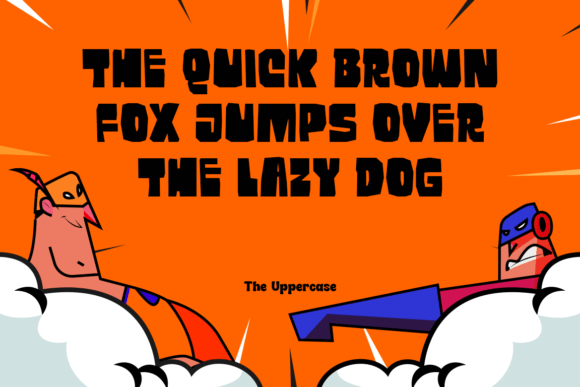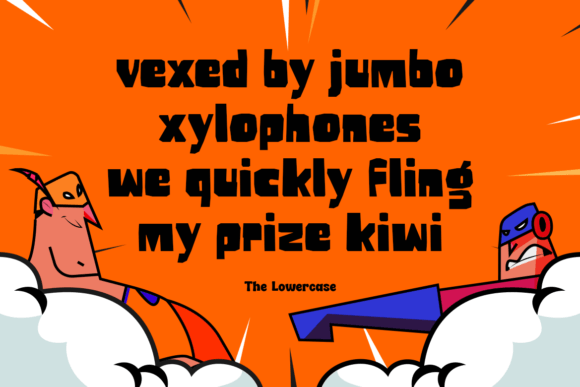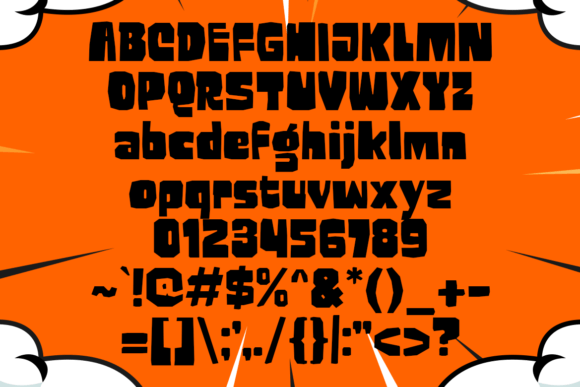
Introduction to Monfetti Font
Do you ever find yourself stuck in a creative rut, searching for that perfect font to bring your design to life? I know I have. And then, it hits you – a burst of inspiration that sends your imagination soaring. For me, that moment came when I stumbled upon the whimsical Monfetti Font. Its bold, bouncy letters are an instant mood-booster, transporting me to a world of vintage comics and playful illustration.
As a designer, I can attest that finding a high-quality design resource like Monfetti Font is a game-changer. With its transparent background and free download, it’s the perfect addition to any creative project. Whether you’re working on a children’s book, a graphic novel, or even a social media campaign, Monfetti Font adds a touch of that magical comic-book flair that’s sure to captivate your audience.
Key Features of Monfetti Font
- High-quality design resource suitable for creative projects
- Unique, colorful, and playful font style with a transparent background
- Designed with a high resolution (300 DPI) for optimal print quality
- Monfetti Font is available in multiple sizes, ranging from 12 to 72 points
- Perfect for adding a pop of color and whimsy to any creative project
Honest Review: Monfetti Font
I recently stumbled upon the Monfetti Font, and I must say it’s a fantastic addition to any design resource collection. As a designer, I’m always on the lookout for high-quality fonts that can elevate a creative project. Monfetti Font definitely delivers.
Here are some of the things that work well with Monfetti Font:
- ✨ Vibrant and playful aesthetic that’s perfect for adding a pop of color to your design
- ✨ High-quality design that’s suitable for both digital and print projects
- ✨ Transparent background, making it easy to use in combination with other design elements
- ⚠️ Limited character set, which may not be suitable for extensive text-based projects
- ⚠️ Not suitable for use as a body font due to its playful and attention-grabbing nature
Overall, I’m impressed with the Monfetti Font. It’s a great resource for designers looking to add some creativity to their projects. The free download option is a bonus, making it an excellent choice for those on a budget.
The Monfetti Font is commonly used in creative projects, such as wedding invitations, party decorations, and social media graphics. Its transparent background makes it easy to layer over other design elements. The Monfetti Font is also a great choice for designers who want to create high-quality, visually appealing designs.
Tips for Getting the Most Out of the Monfetti Font
To get the most out of the Monfetti Font, experiment with different font sizes, colors, and styles. You can also layer the font over a transparent background to create a unique design element. The Monfetti Font is a versatile design resource that can be used in a variety of creative projects.
Does the Monfetti Font have a transparent background?
Yes, the Monfetti Font has a transparent background, making it ideal for use on various backgrounds, including images, videos, and other design elements. This feature allows for greater design flexibility and creativity.